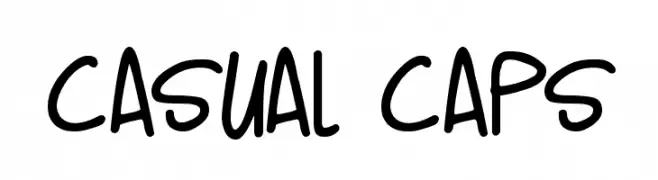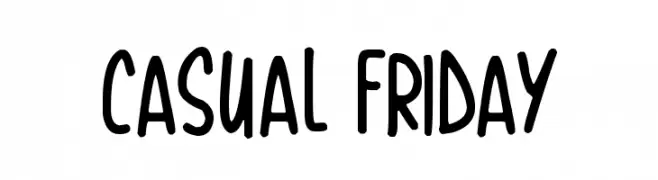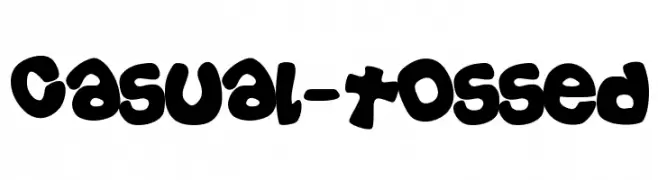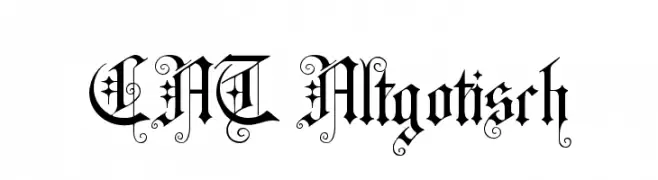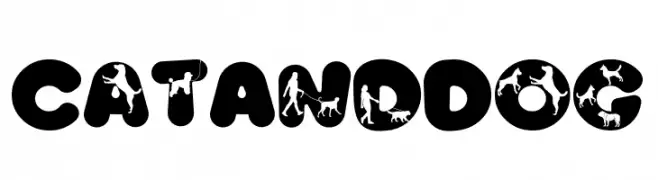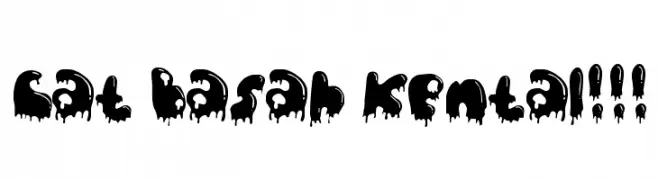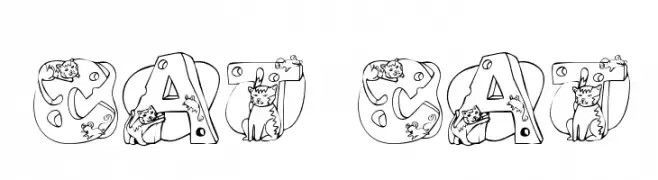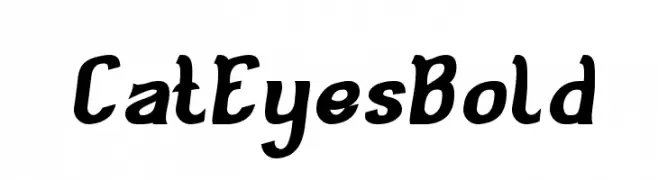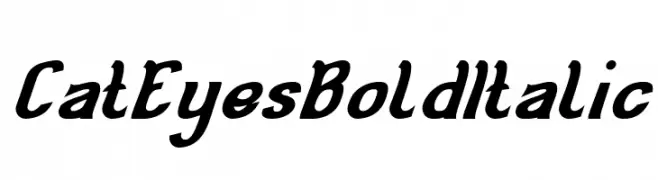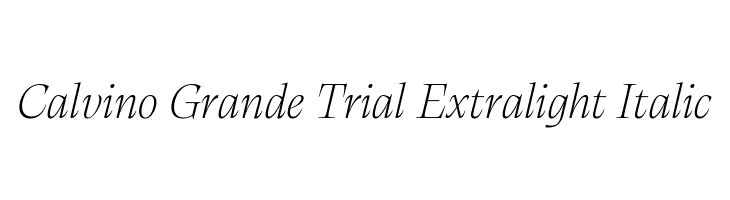
A bold, decorative font with elegant curves and intricate detailing.
A bold, playful font with rounded, thick strokes and a casual, friendly vibe.
A playful, hand-drawn font with bold, rounded characters.
A playful, casual font combining bold uppercase and script-like lowercase letters.
A bold, handwritten font with a playful and casual style.
A playful, handwritten font with a casual and informal style.
A bold, modern font with tall, narrow characters ideal for impactful headlines.
A bold, handwritten font with a casual and expressive style.
Casual, sketchy handwritten font.
A bold, modern sans-serif font with a strong, impactful presence.
A playful, bold font with a whimsical, hand-drawn style and rounded, irregular shapes.
A bold, pixelated font with a retro video game aesthetic.
A bold, blocky geometric font with a modern, digital aesthetic.
A bold, pixelated font with a retro video game style.
A playful, hand-drawn style font with bold, rounded characters.
A casual, handwritten-style font with flowing, slightly irregular strokes.
A playful, casual handwritten font with smooth, rounded edges.
A playful font with cat face motifs on each character, perfect for fun and creative projects.
A whimsical, cat-themed decorative font with 3D effects.
A decorative blackletter font with intricate flourishes and bold strokes.
An ornate blackletter font with intricate details and a Gothic style.
A playful font with bold, rounded letters filled with cat and dog silhouettes.
A playful, bold font with rounded edges and uniform strokes.
A whimsical, medieval-inspired decorative font with unique curves and flourishes.
A whimsical and artistic font with decorative elements and varying stroke widths.
A playful, bold font with a whimsical, cartoonish style.
A playful, handwritten font with a dynamic and whimsical style.
A playful, handwritten-style font with bold strokes and dynamic slant.
A bold, playful font with a hand-drawn, dynamic style.
A bold, italicized font with dynamic and playful letterforms.